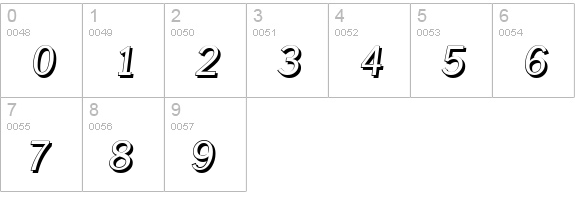
PlymouthShadow-Italic Font Details
PlymouthShadow-Italic is a distinctive, italic variant in the PlymouthShadow typeface family \xE2\x80\x94 well suited to design and typography projects.
PlymouthShadow-Italic is a stylish and elegant font that exudes sophistication and charm. Its sleek italic design adds a touch of modernity to any project, making it perfect for a wide range of creative applications. The unique shadow effect creates a sense of depth and dimension, giving your text a dynamic and eye-catching appearance. The best part? PlymouthShadow-Italic is completely free to download at FontsMarket.com, allowing you to bring a touch of class to your designs without breaking the bank. Whether you're working on branding materials, invitations, or digital artwork, this versatile font is sure to make a statement. Don't miss out on the opportunity to elevate your projects with PlymouthShadow-Italic – download it today and unleash your creativity!